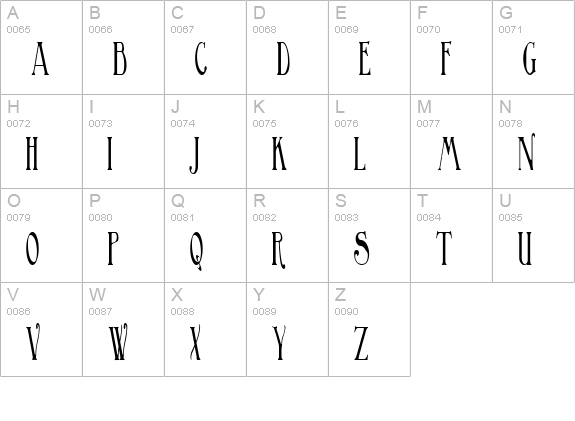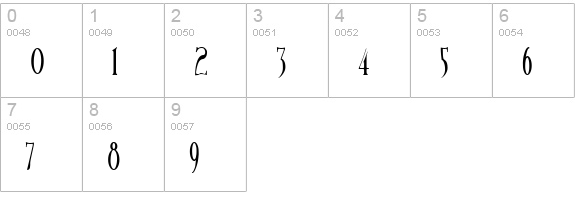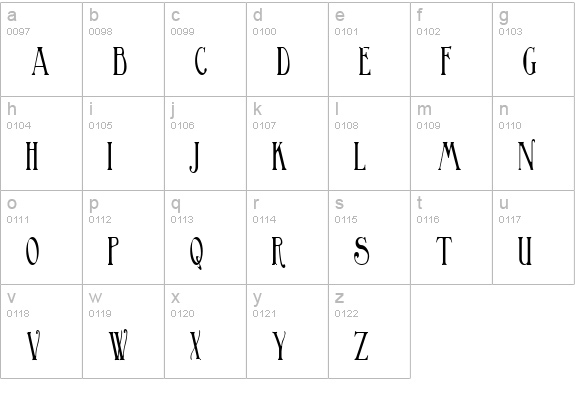
BirminghamElongated Font Details
BirminghamElongated font is a stunning display typeface that exudes elegance and sophistication. With its elongated letterforms and intricate details, this font is sure to make a bold statement in any design project. Whether you are creating a logo, a poster, or a branding project, BirminghamElongated font will add a touch of class and style. The best part? BirminghamElongated font is available for free download at FontsMarket.com. You can easily access this beautiful font and use it in your projects without any cost. So why wait? Download BirminghamElongated font today and elevate your designs to the next level.